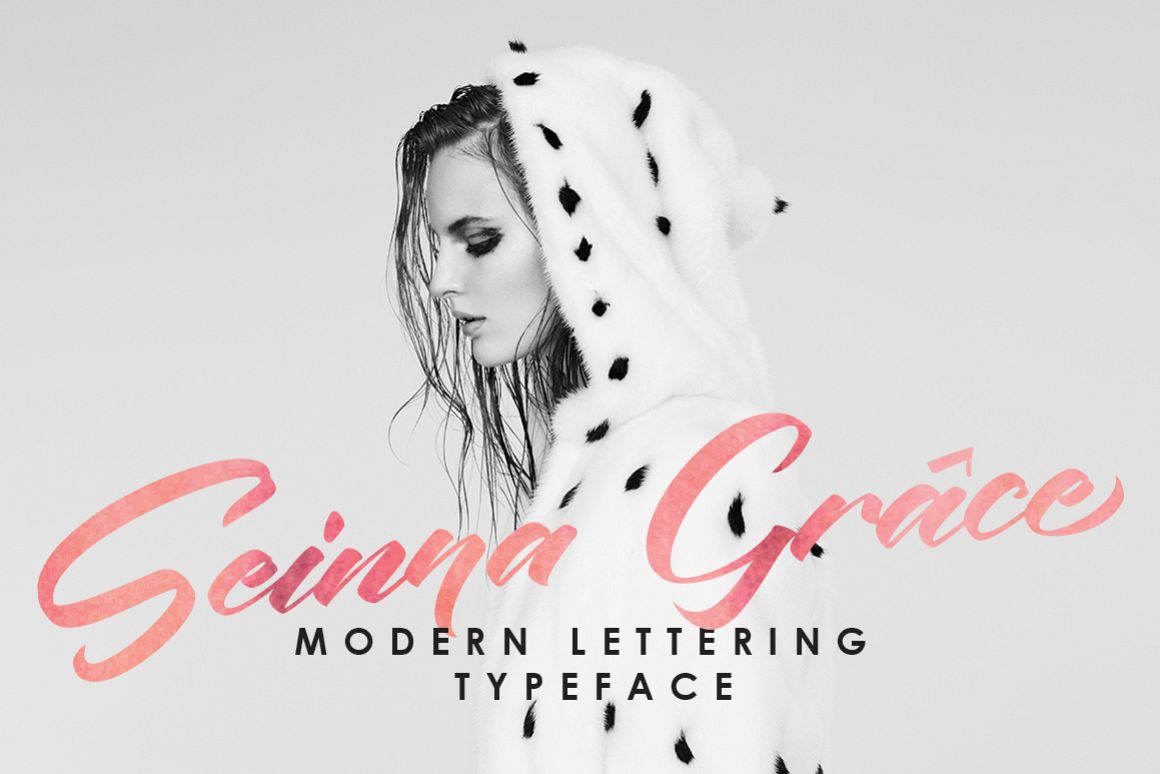
Seinna Grace
This beautiful modern lettering named "Seinna Grace", its created with lovely and stylistic characters. This Elegant font was PUA encoded . Seinna Grace is a modern lettering typeface that comes with Extended Latin Characters.This fonts works properly and perfectly for logos, wedding invitation card, stationary, packaging, clothing, flyer, apparel, magazines, brochures, headings, signature, lable, news, posters, badges, etc.
Seinna Grace features 327 glyphs and 82 alternate characters contain with opentype features. Seinna Grace has many stylistic alternate characters that allowing you to make each word look completely clean and elegant.The Standard Ligatures are also included to bring up your creativity. You can access all those alternate characters by using OpenType savvy programs such as Adobe Illustrator, Adobe InDesign and CorelDraw X6-X7, Microsoft Word 2010 or later versions.There are additional ways to access alternates/swashes, using Character Map (Windows), Nexus Font (Windows), Font Book (Mac) or a software program such as PopChar (for Windows and Mac). For other programs that doesn't support OpenType features or Glyphs Panel such as Photoshop, you can use Character Map in